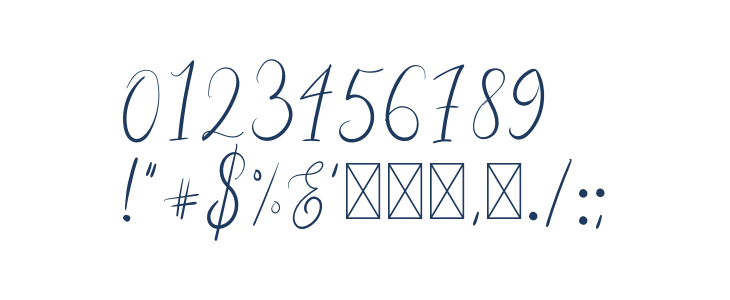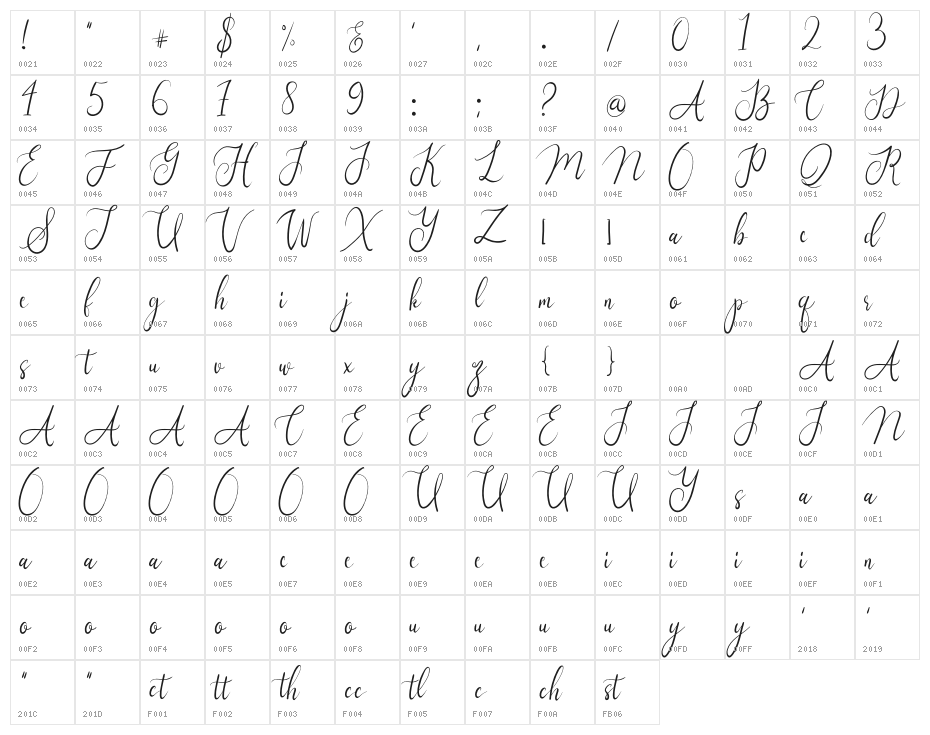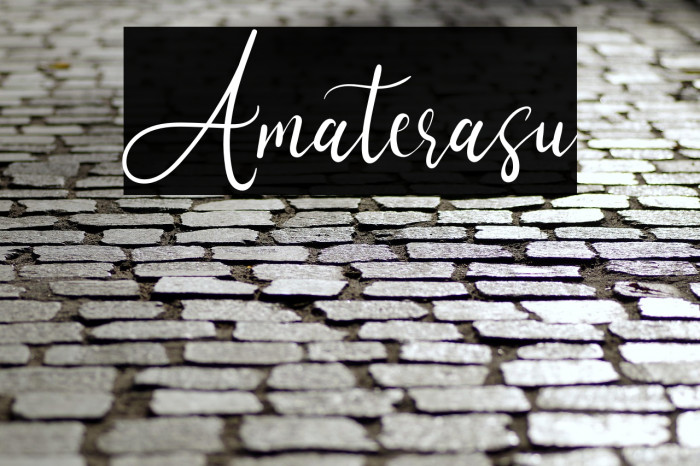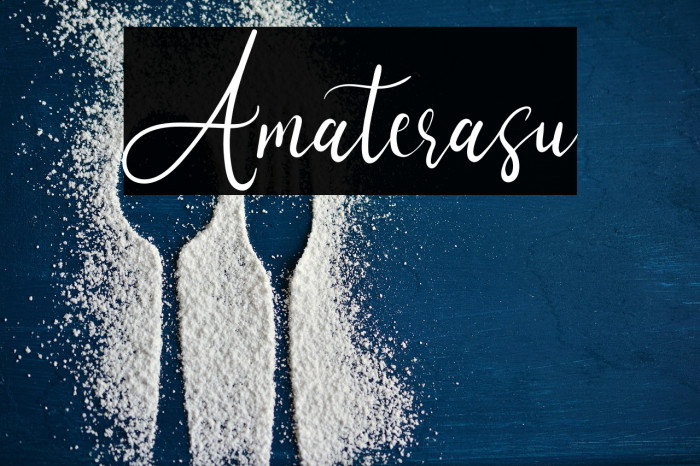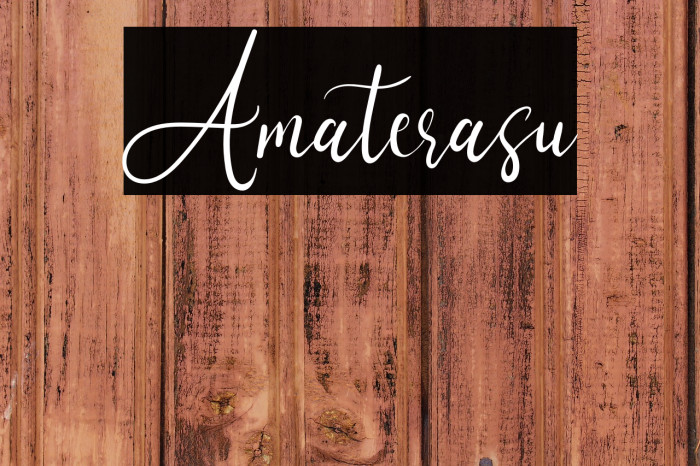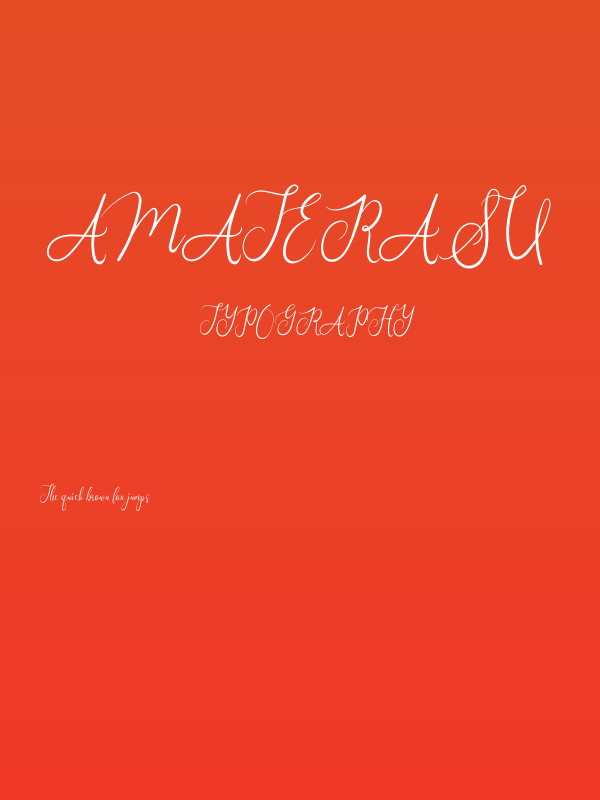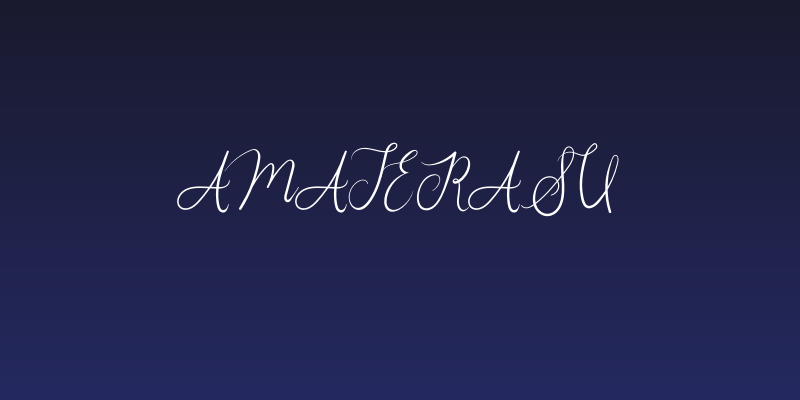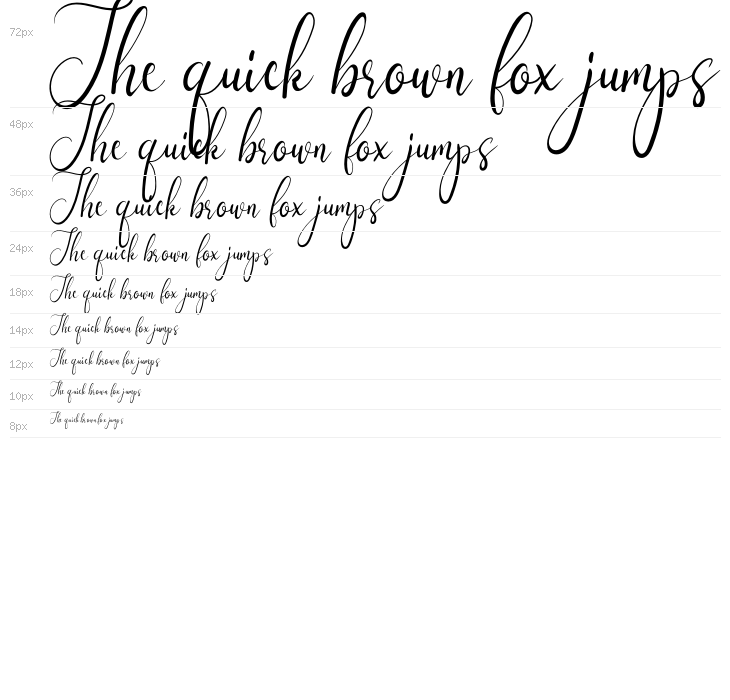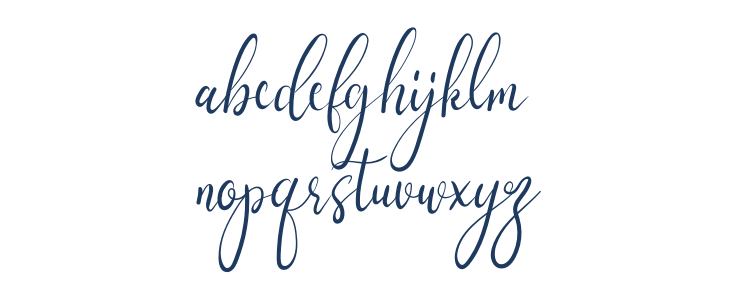
Amaterasu Font
Amaterasu Description
This elegant script font features flowing, interconnected letters that exude a sense of sophistication and grace. The uppercase letters are tall and slender, with delicate loops and flourishes that add a touch of whimsy. The lowercase letters maintain a consistent style, with smooth curves and a slight slant that enhances readability. The numerals are designed to match the overall aesthetic, with a similar height and style, ensuring a cohesive look. Special characters are thoughtfully crafted, maintaining the font's elegant and artistic feel. This font is perfect for projects that require a touch of elegance and creativity.
ContrastMedium
Overall StyleElegant
Use CaseLogos, Invitations, Decorative text
Proposed ProjectsIdeal for wedding invitations, elegant branding, greeting cards, and artistic posters.